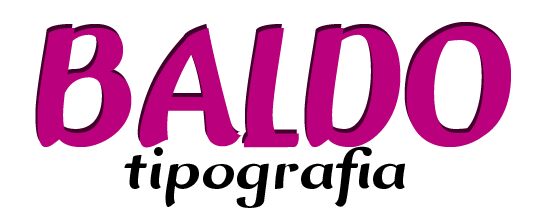
Baldo Italic by Diego Arturo Olaya Cortes is a free calligraphic script with a lively, theatrical silhouette. Broad, swelling strokes narrow abruptly into sharp joins and hooked endings, giving the letters a cut-paper crispness despite their flowing movement. The capitals are especially dramatic, with pointed peaks and deep curves that recall expressive sign painting.
Designers working in food, hospitality, or performance can use its spirited forms for restaurant branding, festival posters, and album packaging. On menus and specialty drink labels, the changing stroke widths can echo hand-rendered illustration, while the emphatic capitals give a brand name the recognizable shape of a custom-painted sign.
Baldo is a study of italic calligraphy construction systematized into personal concepts.